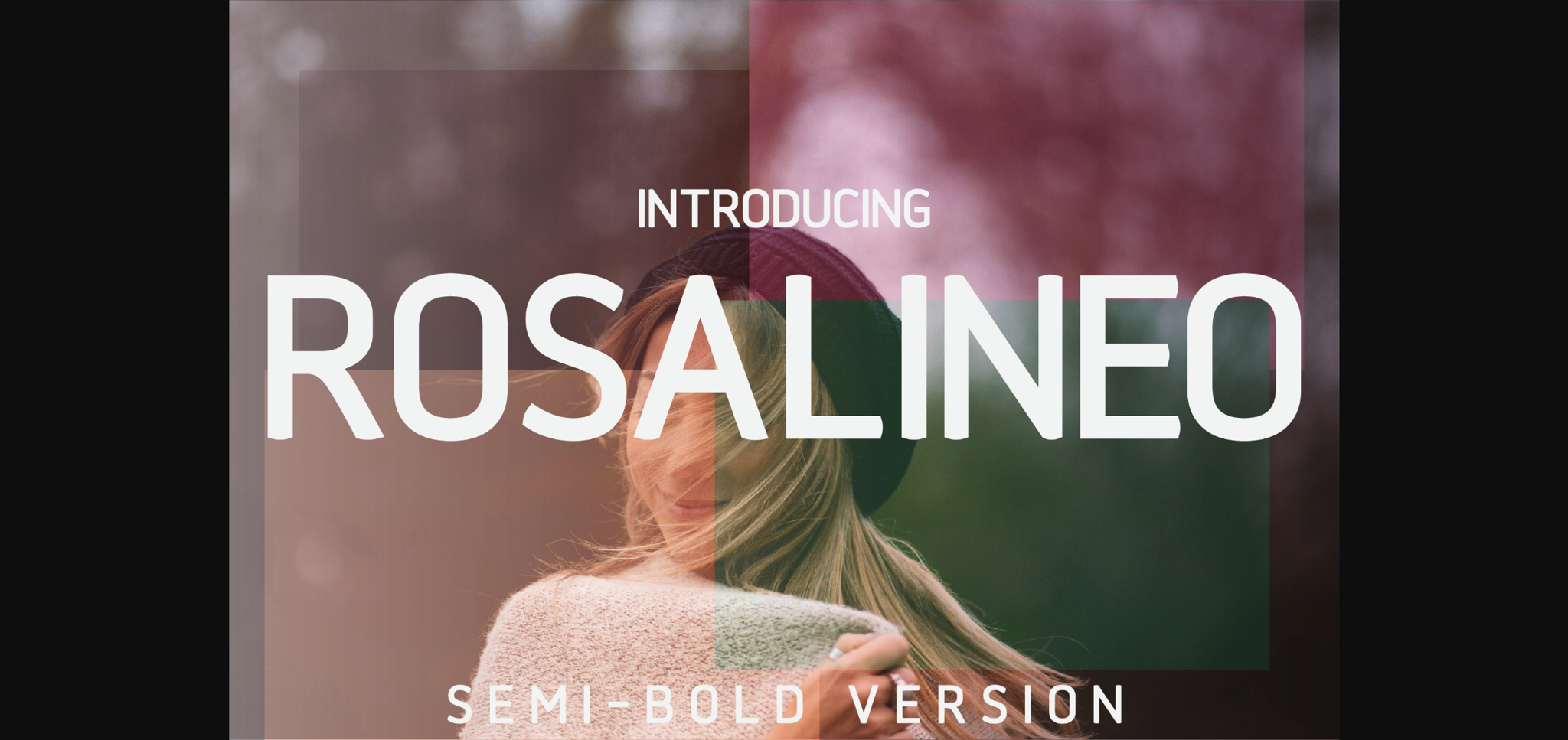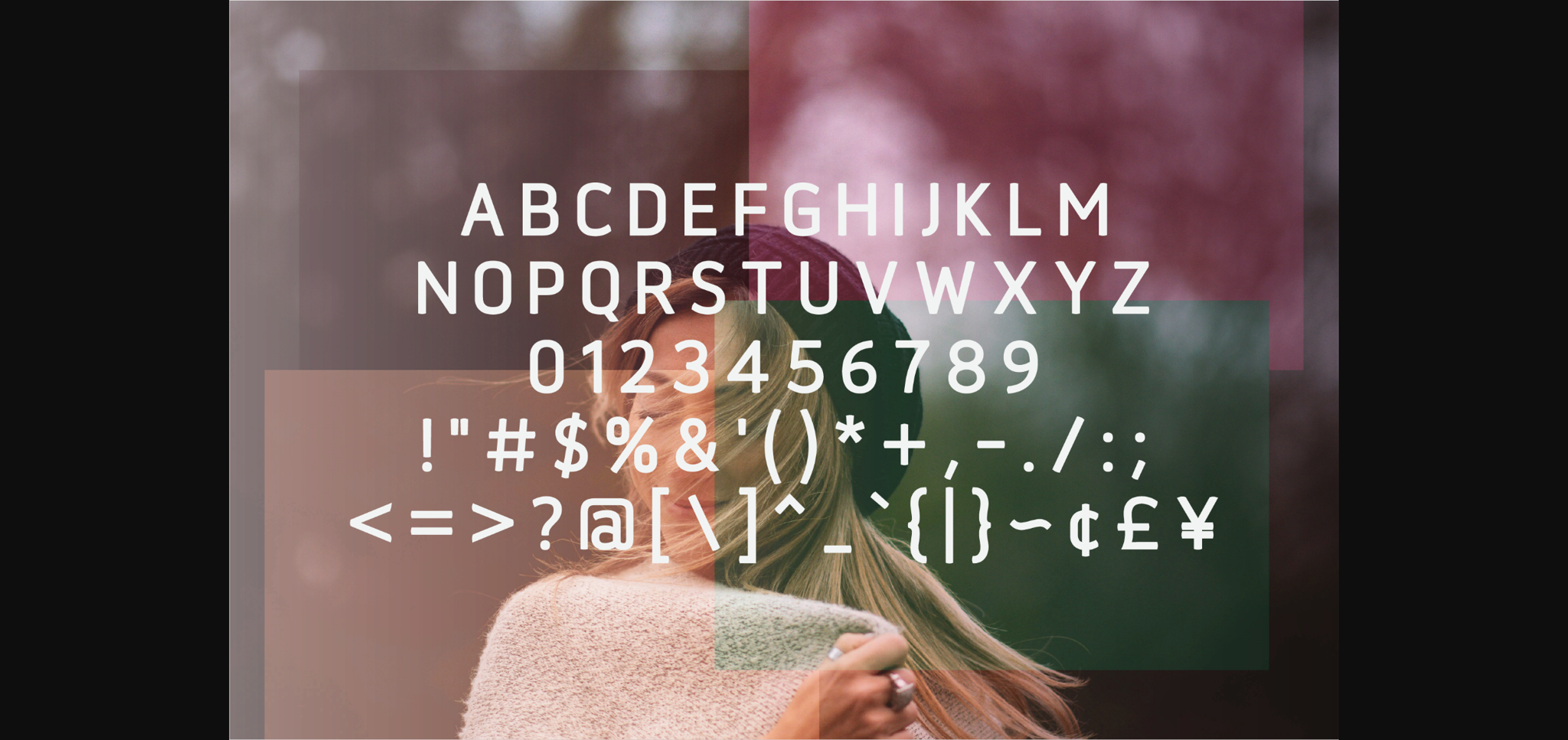
Rosalineo Semi-Bold Font
About Rosalineo Semi-Bold Font
Rosalineo Semi-Bold is a typographic homage to the iconic Helvetica font. It works well both on the page and the screen, in large display sizes as well as smaller body sizes.